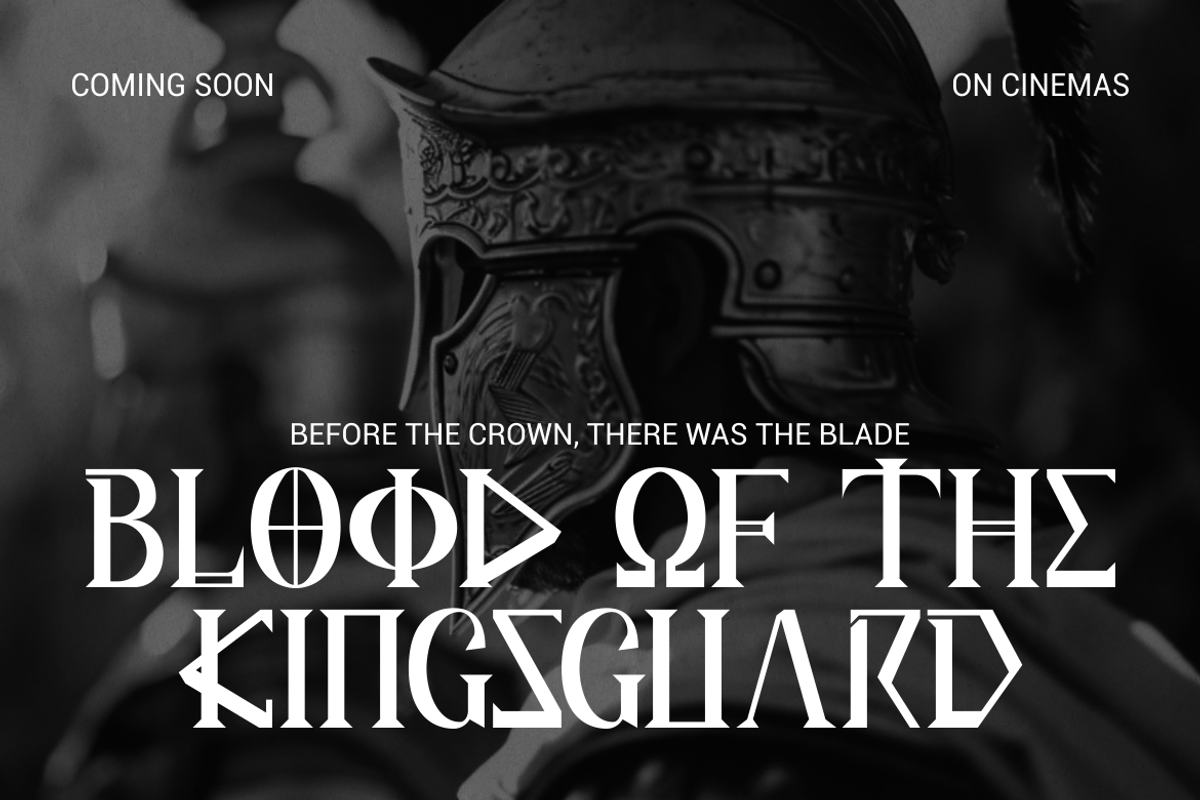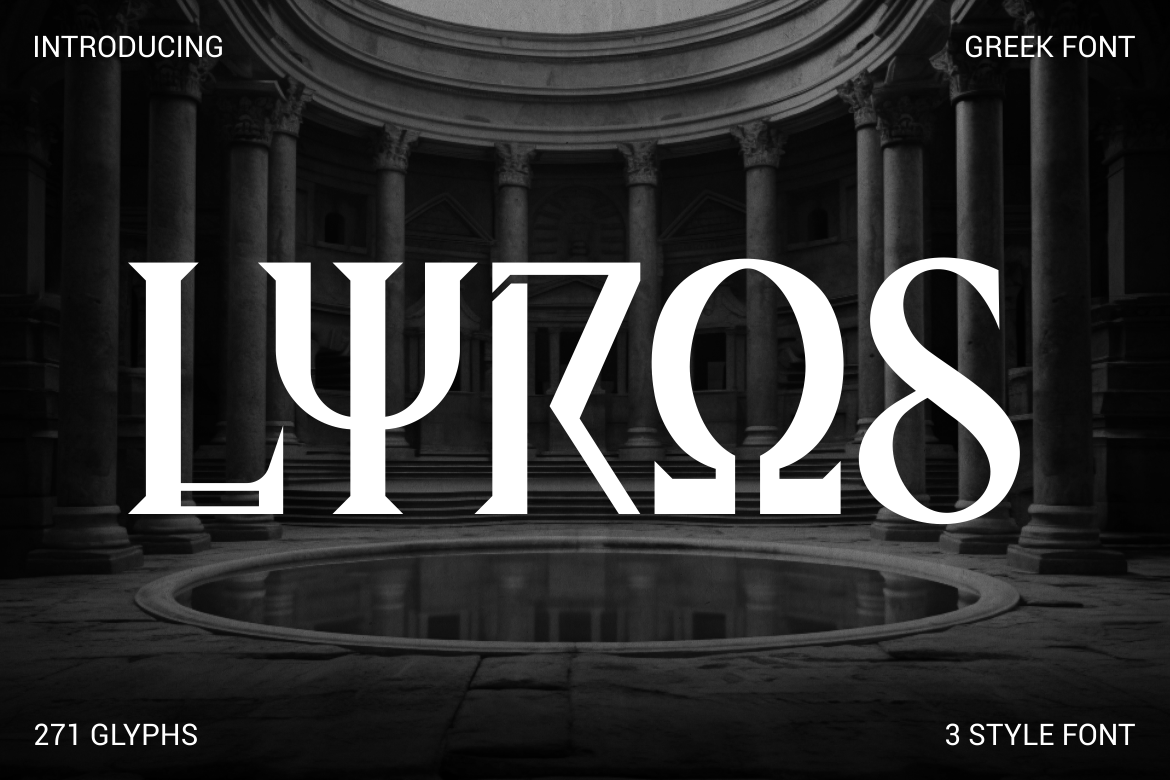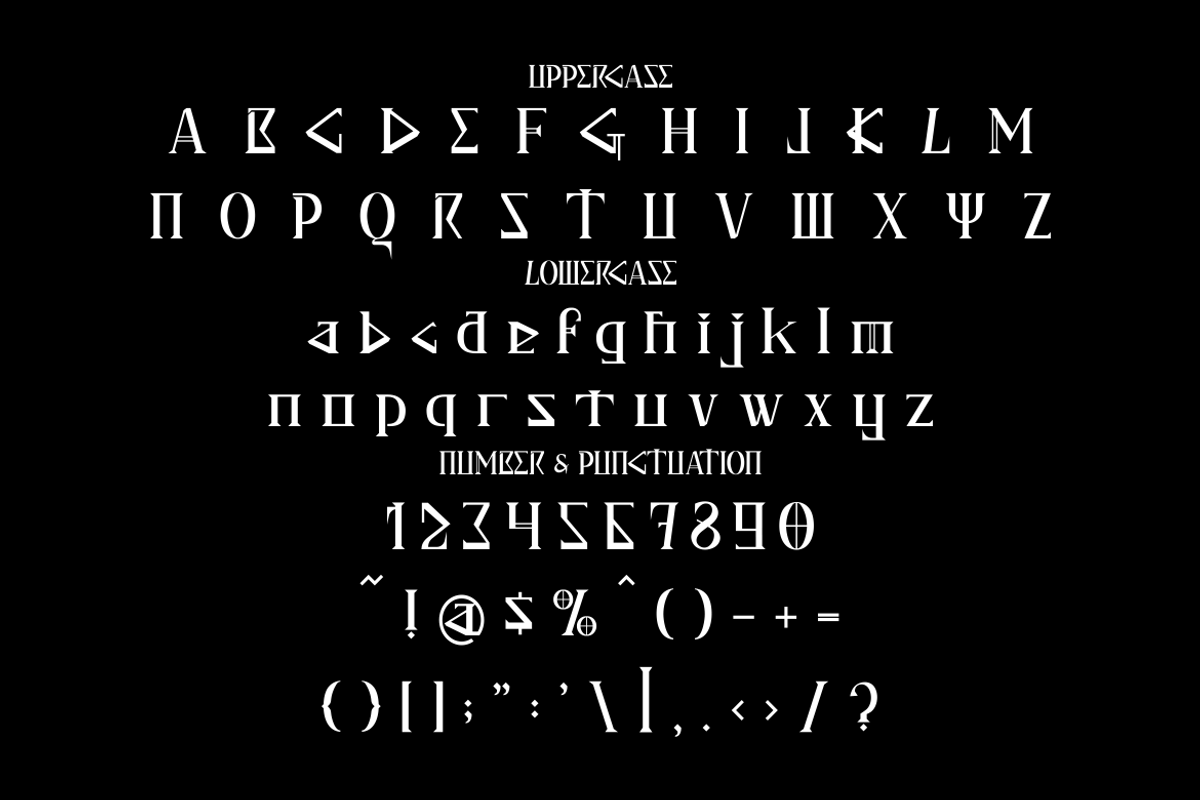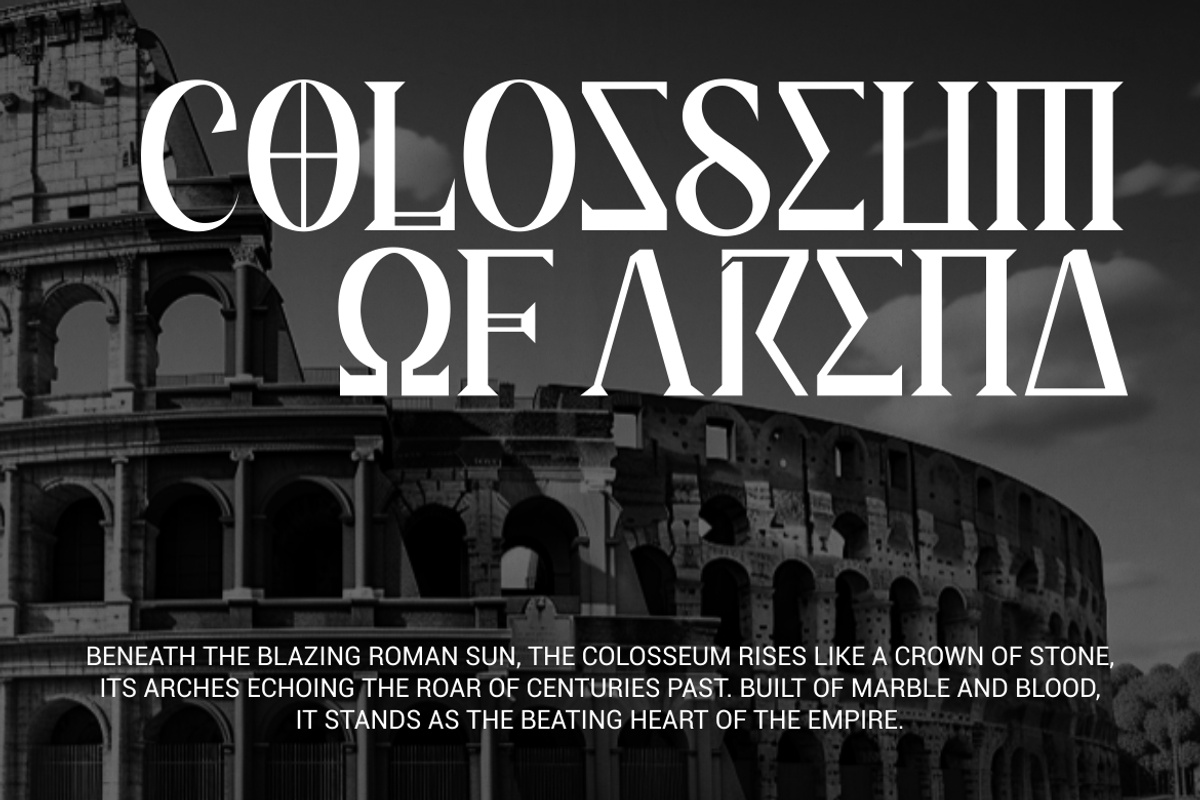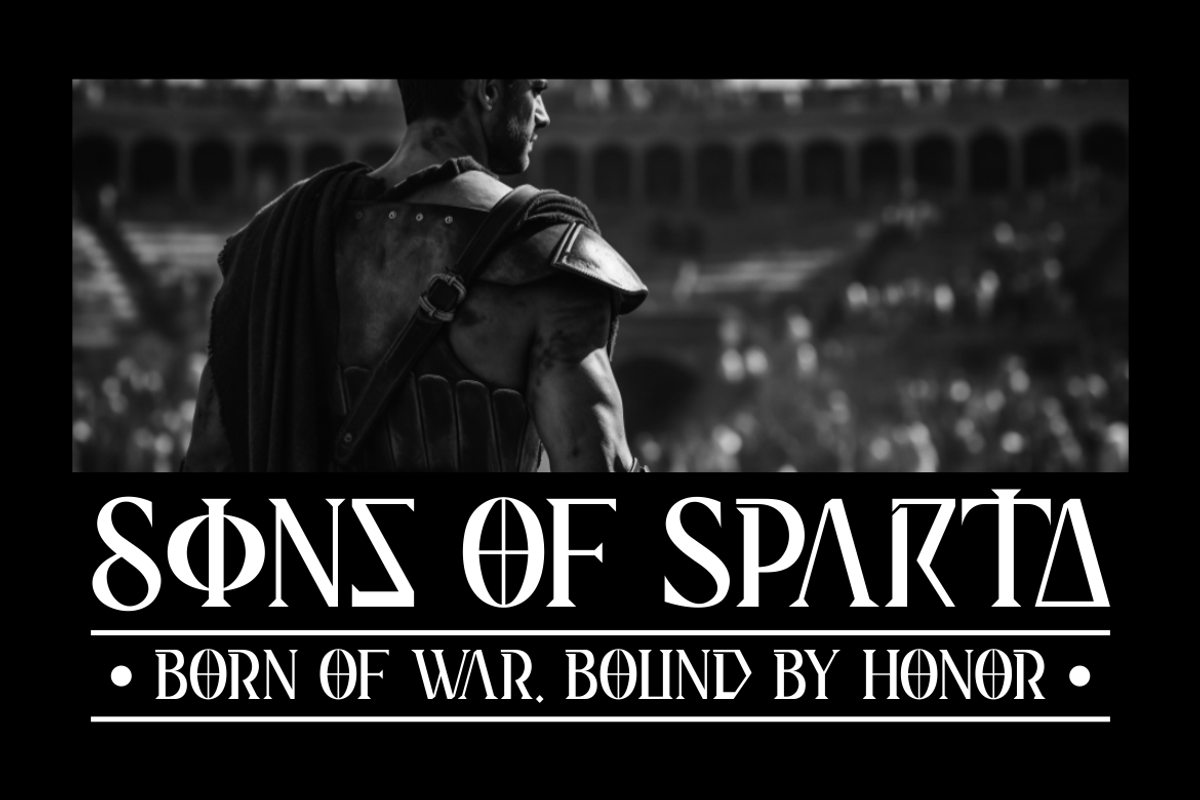
Lyros Greek Font
Lyros Greek Font is a striking display typeface inspired by classical Greek letterforms and ancient stone-carved typography. The characters feature tall proportions with strong vertical emphasis, creating a commanding and authoritative presence. Each letter is built with sharp angles, solid strokes, and carefully cut terminals that echo traditional Greek inscriptions. The stroke weight feels balanced and confident, avoiding excessive thickness while maintaining visual strength. Clean edges and precise geometry give the font a structured appearance, while subtle angular details add a distinctive foreign look. The overall construction delivers clarity at large sizes, making the typeface visually impactful without sacrificing legibility.
The style of Lyros Greek Font blends classic heritage with a modern display approach. It feels timeless, bold, and heroic, yet remains adaptable for contemporary design needs. The font carries a cinematic and monumental character, often associated with mythology, ancient civilizations, and epic storytelling. Lyros Greek Font works especially well for logo design, branding systems, movie titles, posters, and bold headlines that require a strong identity. It also suits book covers, magazine layouts, packaging, invitations, and promotional materials that aim to convey power, tradition, and prestige. This font supports creative projects related to Greek culture, historical themes, and brands seeking a refined foreign aesthetic. With its sharp serif construction and disciplined structure, Lyros Greek Font offers designers a reliable tool for creating memorable visuals that stand out across digital and print media.